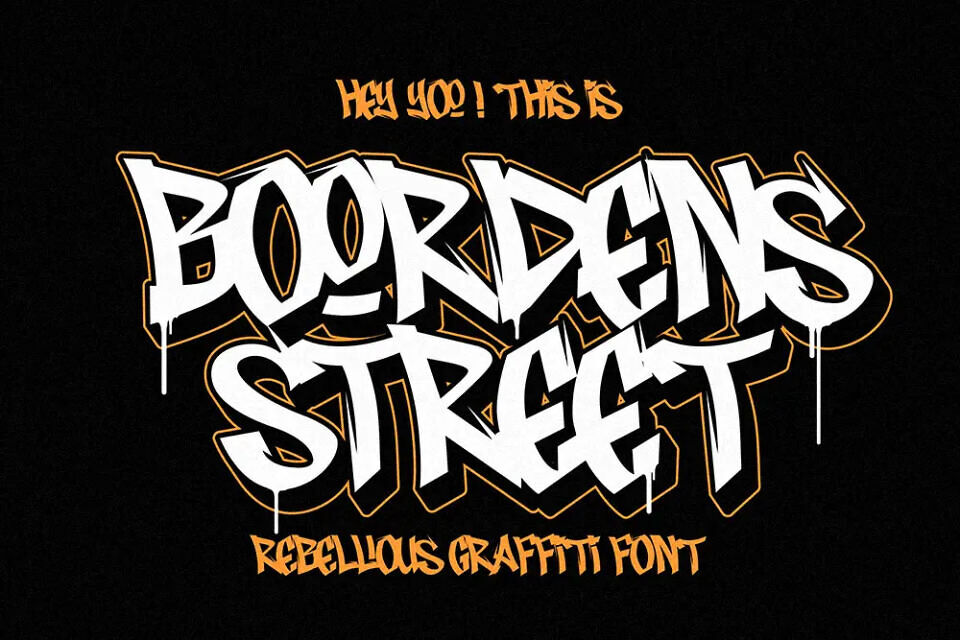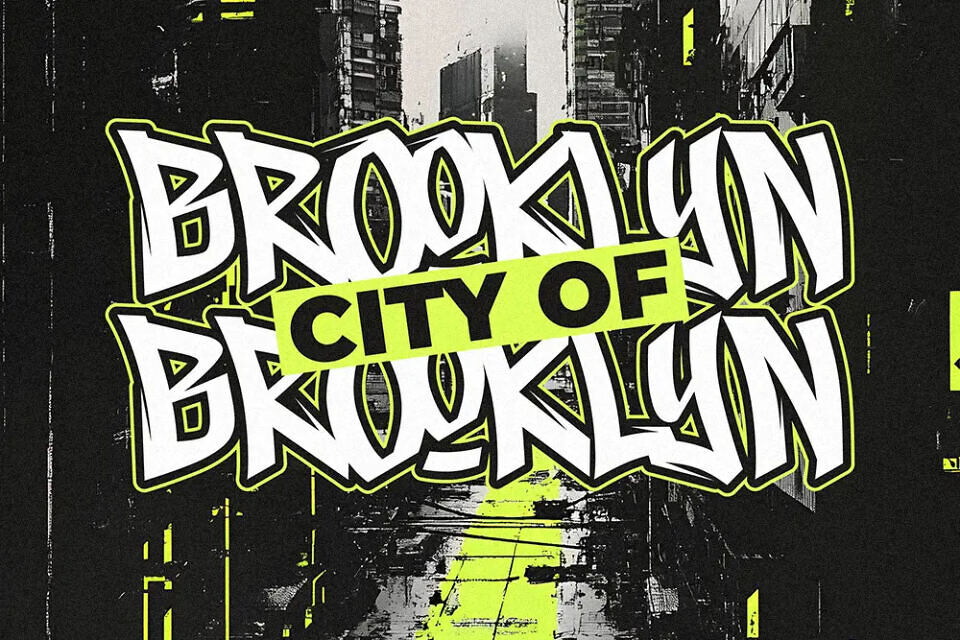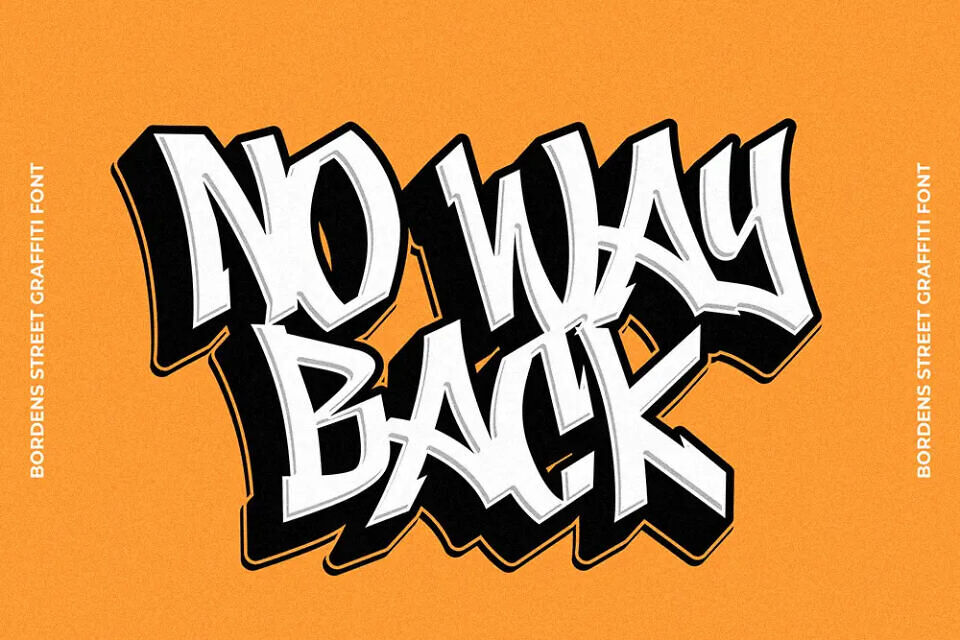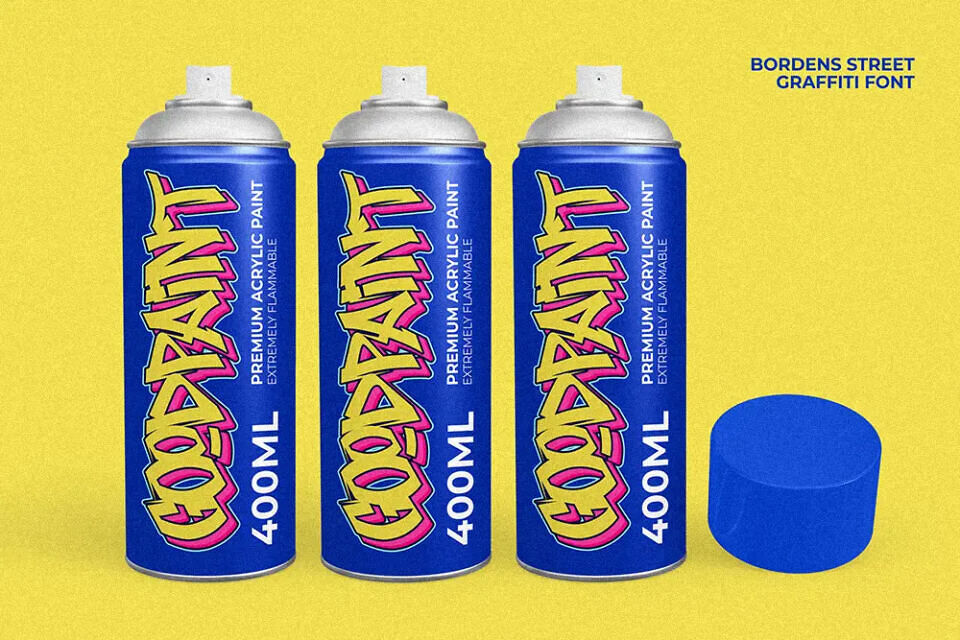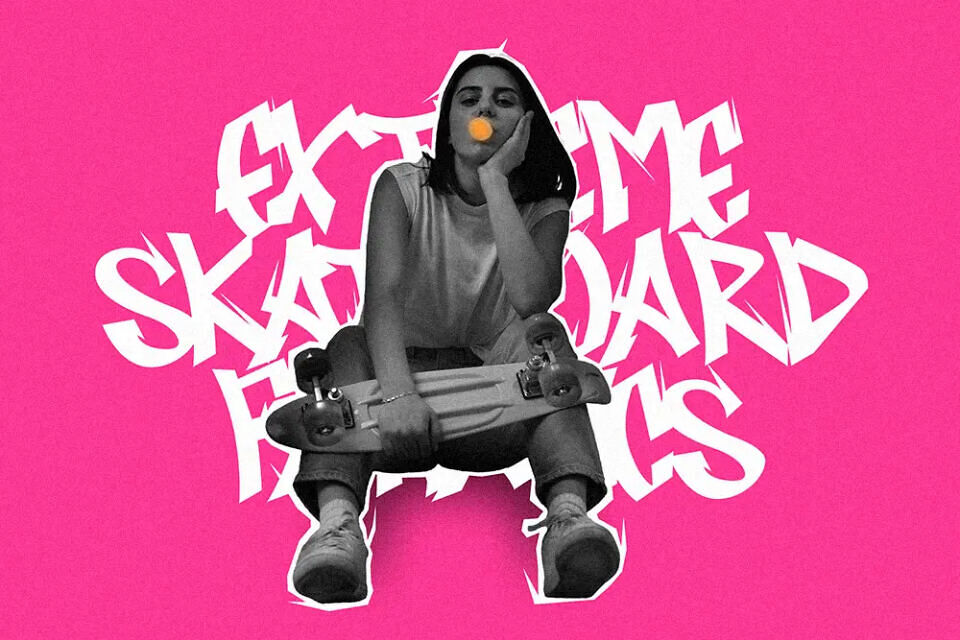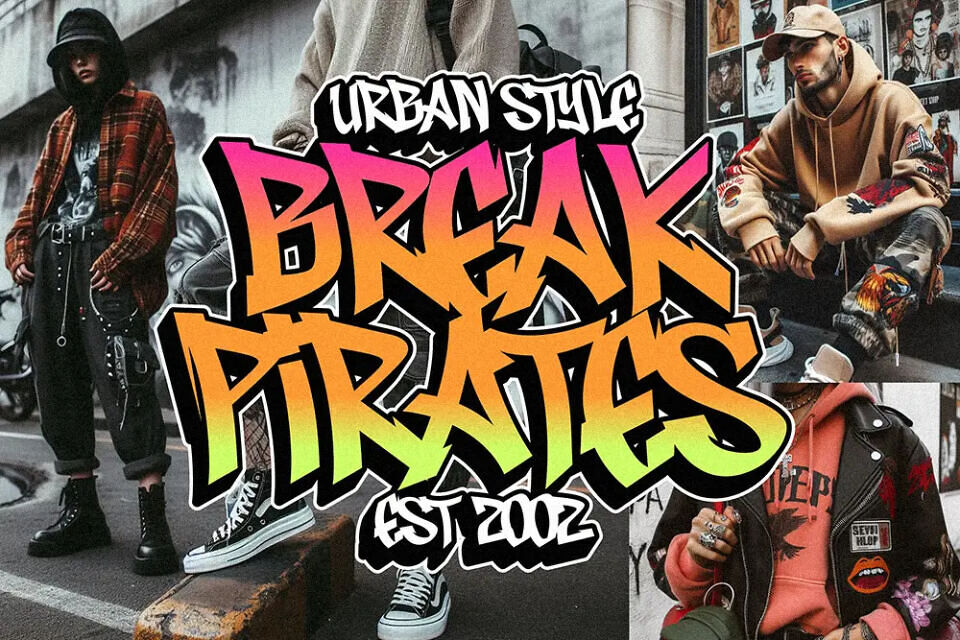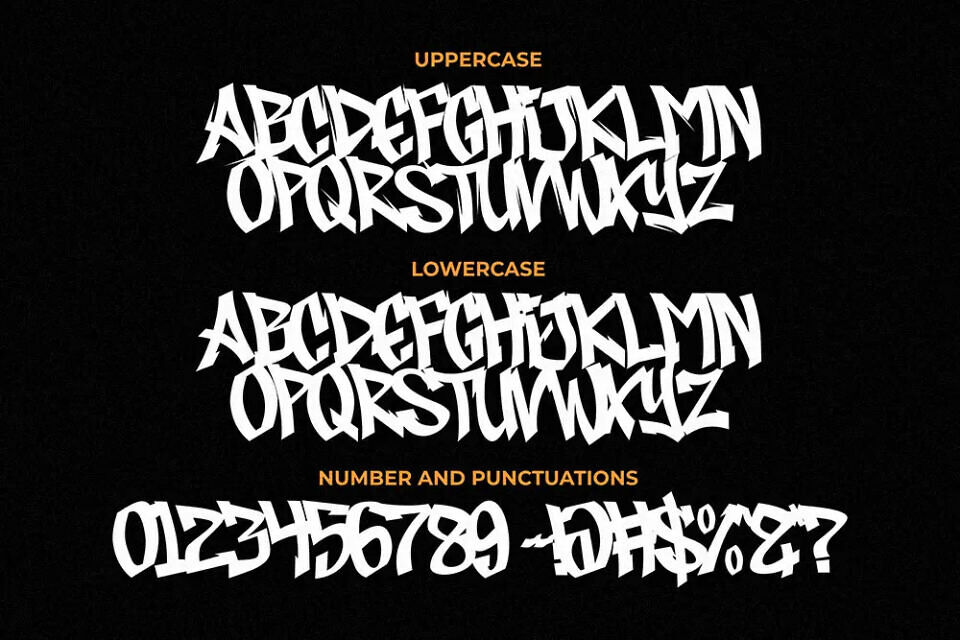
Boordens Street is a bold graffiti font that channels raw, rebellious energy into every letter. Designed for artists, designers, and creatives, it brings gritty authenticity to posters, branding, and digital art.
With uppercase, lowercase, numbers, symbols, and multilingual support, it offers creative freedom across styles and languages. Each handcrafted character features rough edges and urban flair, making it perfect for edgy designs, merch mockups, and street-style visuals.